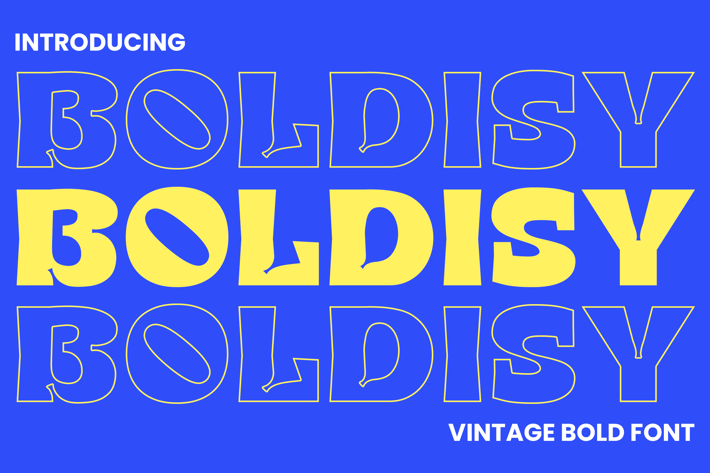
Boldisy - Vintage Bold Font
Looking to redefine your brand's aesthetic or infuse an extra layer of character into your projects? Look no further.
Introducing Boldisy - A Vintage Bold Font.
From logos and posters to packaging and apparel, Boldisy adds timeless appeal and makes a lasting impression. Boost your brand's visual identity with the stylish charm of this font. Enjoy!
Multilingual & Ligature Support
Full sets of Punctuation and Numerals